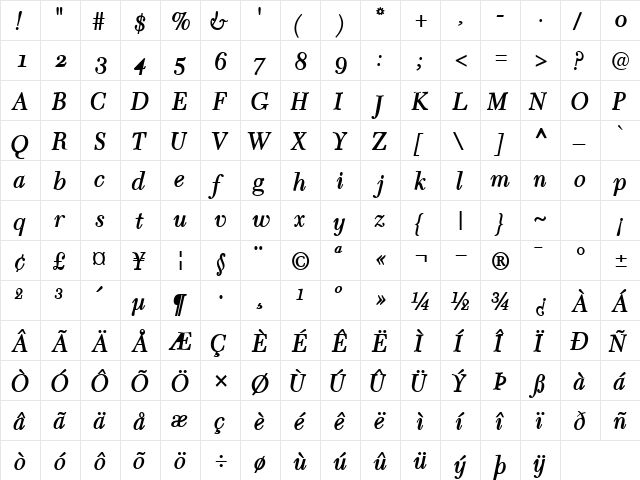
TycoonOSSSK Bold Italic Font Preview
TycoonOSSSK Bold Italic
TycoonOSSSK Bold Italic Font Details
Design Context for TycoonOSSSK Typeface
TycoonOSSSK takes a measured approach to typography — its balanced proportions and neutral character make it a reliable workhorse for both digital and print work. The dynamic lean of this cut emphasises speed and emphasis in any layout. Its bold stroke weight gives it real presence on the page.
Pro Tip: Use TycoonOSSSK for emphasis, pull quotes, and subheadings where its slanted energy can add rhythm to the layout.